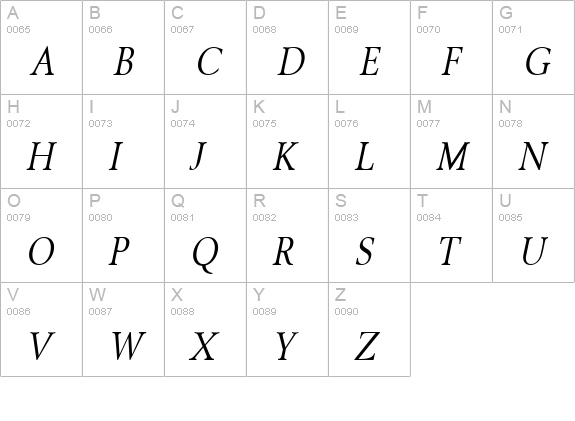
Revive 8 Condensed Italic is a distinctive, condensed-width, italic variant in the Revive typeface family \xE2\x80\x94 well suited to design and typography projects.
Revive 8 Condensed Italic font is a stunning typeface that exudes elegance and sophistication. Its sleek and slender design, combined with its italicized form, adds a touch of grace and finesse to any creative project. Crafted with meticulous attention to detail, Revive 8 Condensed Italic seamlessly blends modernity with a timeless appeal. Its condensed nature allows for maximum impact, making it perfect for headlines, titles, and branding materials that demand attention. The clean lines and distinctive curves of Revive 8 Condensed Italic create a harmonious balance, making it versatile for a wide range of design applications. Whether used in print or digital media, this font captures the essence of professionalism and refinement. One of the greatest advantages of Revive 8 Condensed Italic is that it is freely available to download at FontsMarket.com. This means that designers, creatives, and enthusiasts alike can access this exceptional font without any cost. The user-friendly interface of FontsMarket.com ensures a seamless and hassle-free experience, allowing you to enhance your projects effortlessly. With Revive 8 Condensed Italic, you have the power to elevate your designs and make a lasting impression. Its timeless beauty and sleek aesthetics will captivate your audience, leaving them in awe of your creativity. Whether you're designing for a corporate presentation, a magazine layout, or a website, Revive 8 Condensed Italic is the perfect choice to elevate your typography game. Download Revive 8 Condensed Italic today from FontsMarket.com and unlock a world of artistic possibilities. Harness the beauty of this font to create captivating visuals that will leave a lasting impact. With its free availability and unparalleled elegance, Revive 8 Condensed Italic is a must-have addition to any designer's toolkit.